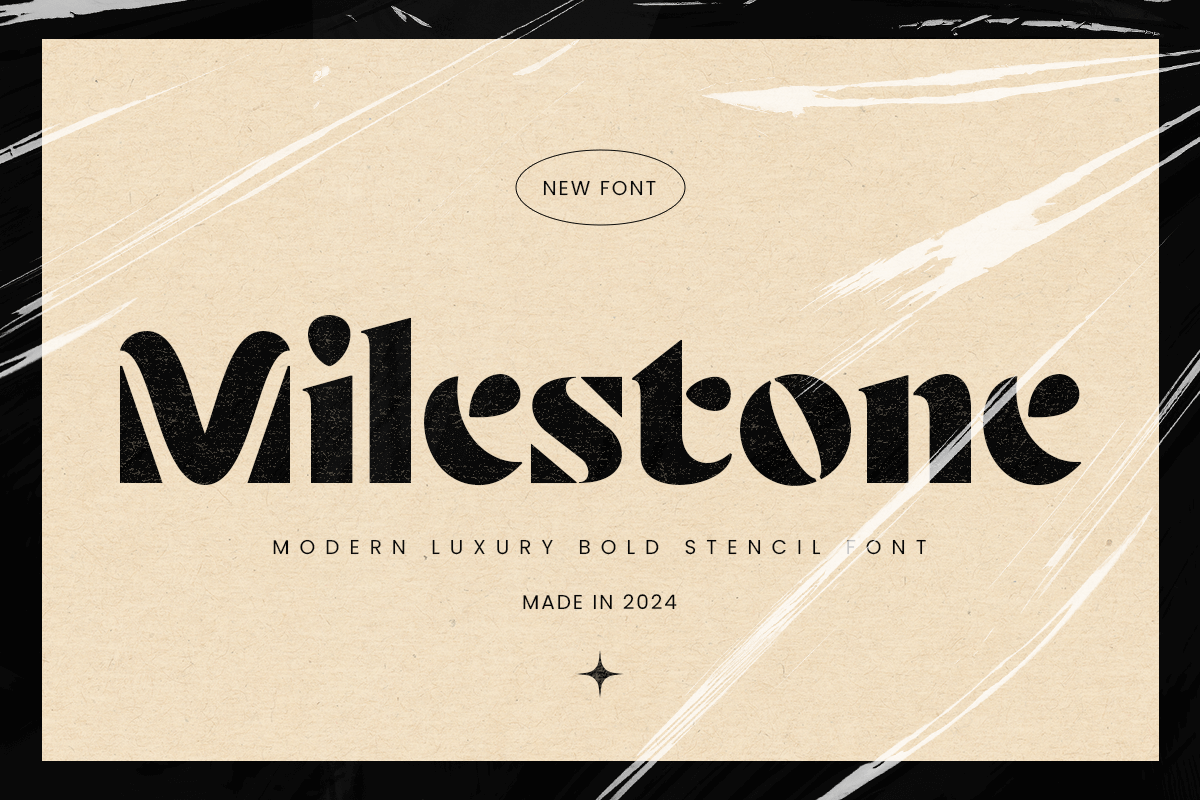
Milestone
-Modern Luxury Bold Stencil FontMilestone is a bold luxury font with a modern stencil design that commands attention and adds a unique sophistication to any project. With strong lines and striking stencil cuts, Milestone brings a contemporary edge to branding, logos, and high-impact designs. Its bold presence makes it ideal for brands looking to make a memorable statement.
This font was crafted with an eye for detail, blending boldness with elegance. Perfect for luxury brands, fashion, and editorial spreads, Milestone elevates designs with a refined yet powerful look that resonates with audiences seeking modern, upscale aesthetics. Its stencil style adds an artistic flair while retaining clarity and readability. Transform your projects with Milestone, a font that combines luxury and boldness in a modern, versatile form. Its design is well-suited for digital and print, making it a go-to choice for brands wanting to make a high-end, lasting impression.
Milestone Modern Luxury Bold Stencil Font Features:
Bold Stencil Style with Modern Elegance
Unique Alternate Characters